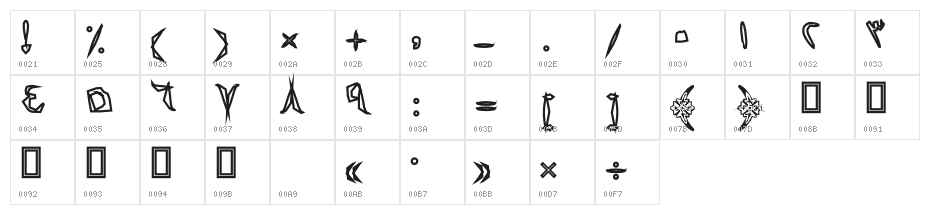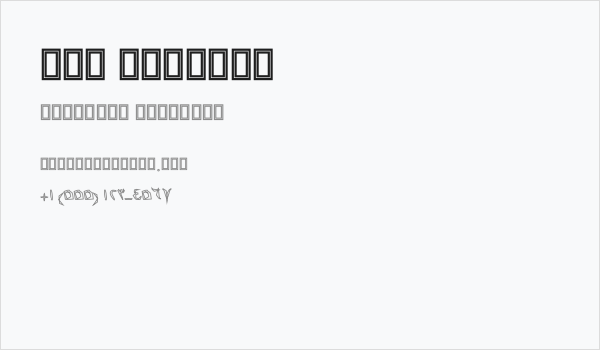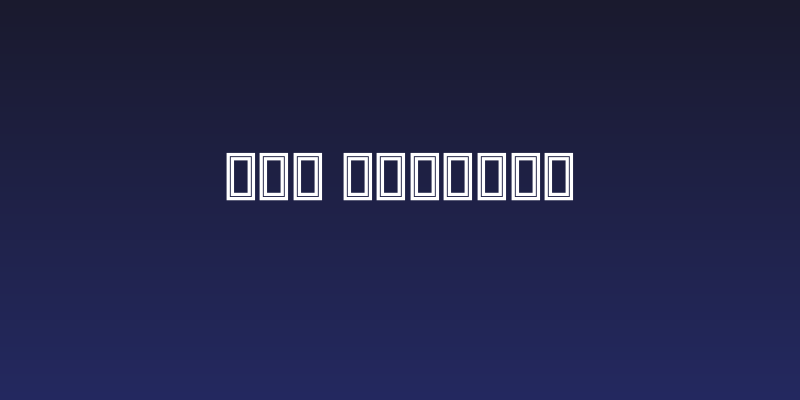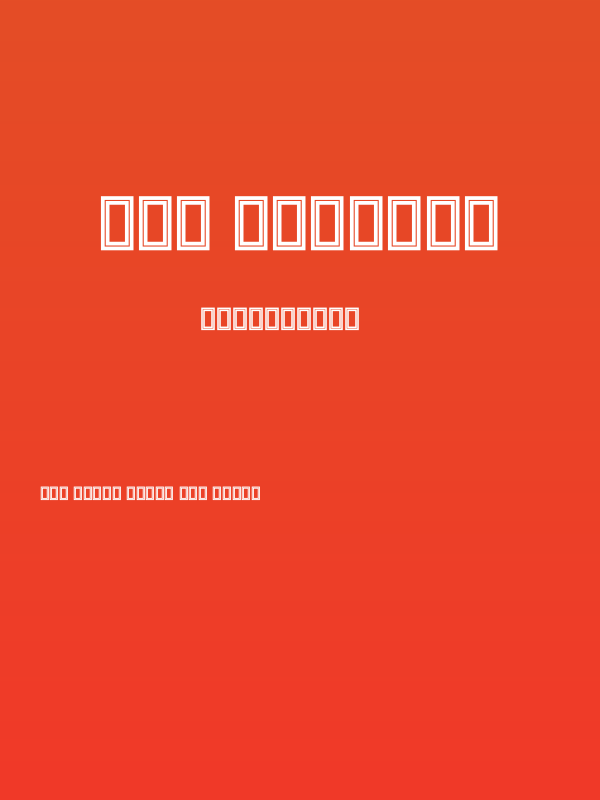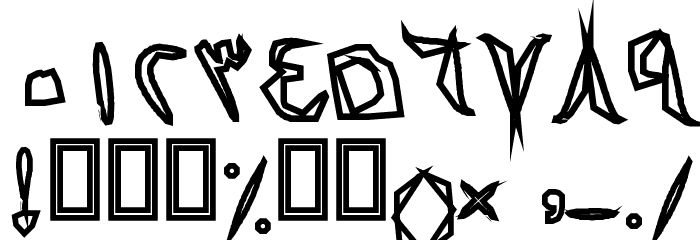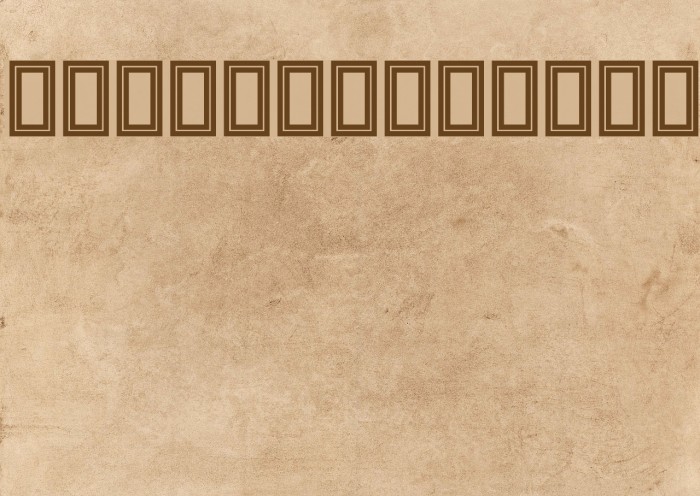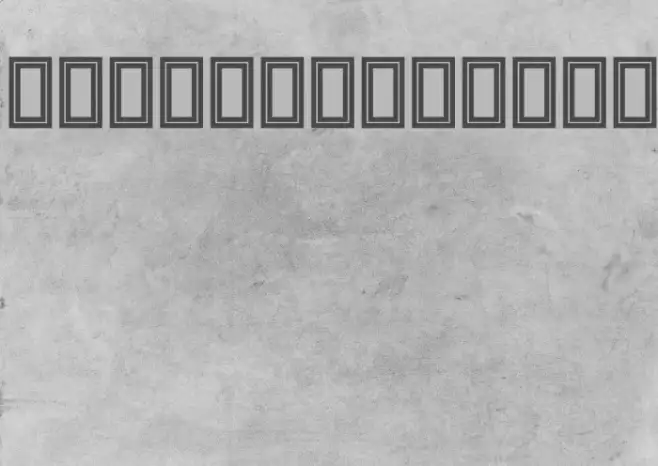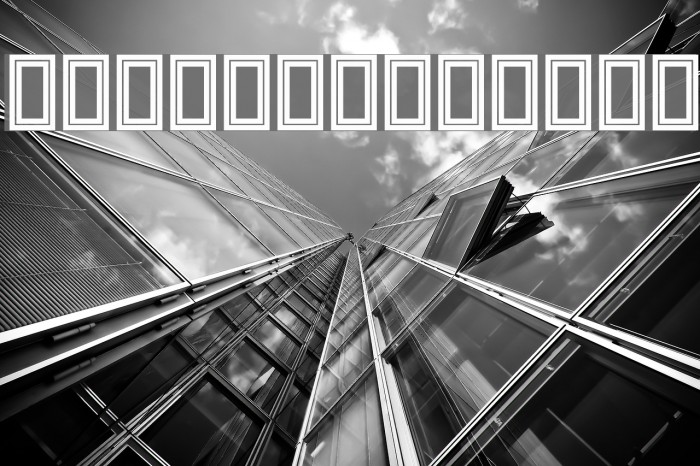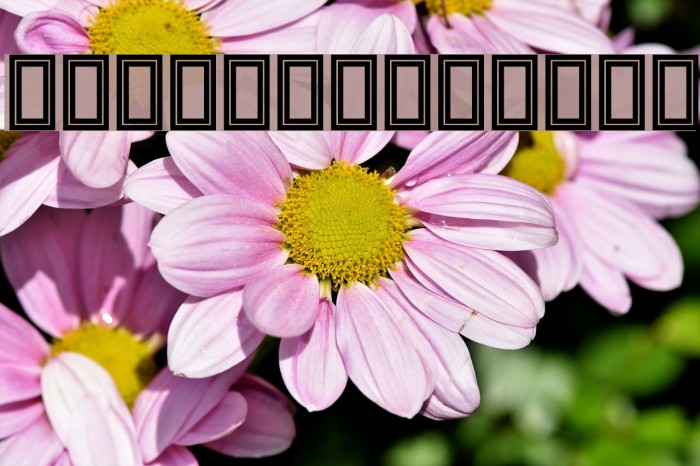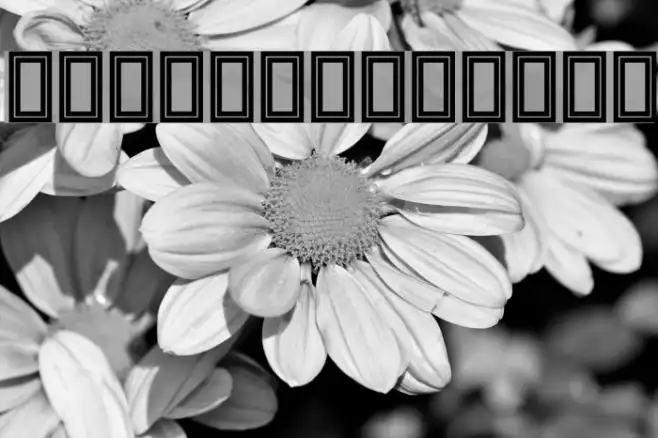
Lab Outline Font
Lab Outline Description
This font exhibits a highly decorative and abstract style, characterized by sharp, angular lines and a dynamic, edgy appearance. Each character is uniquely crafted with a sense of movement and energy, making it stand out as a bold statement piece. The font's design is reminiscent of graffiti or street art, with an emphasis on individuality and artistic expression. The letters and numbers are crafted with a jagged, almost chaotic form, yet maintain a consistent theme throughout. This font is not suited for readability in large blocks of text but excels in creating a strong visual impact in short phrases or titles. The special characters follow the same artistic theme, adding to the font's overall cohesive and striking aesthetic.
| Proposed Projects | Ideal for use in street art projects, edgy branding, album covers, or any design requiring a bold, artistic statement. |